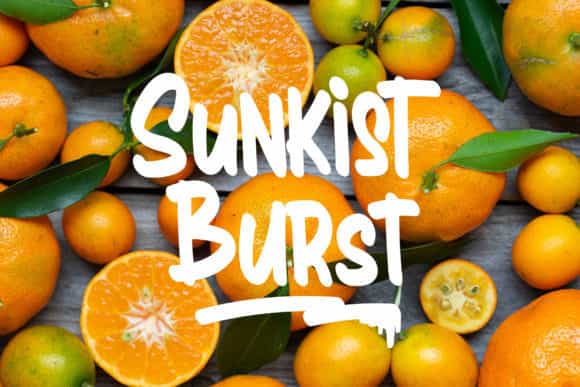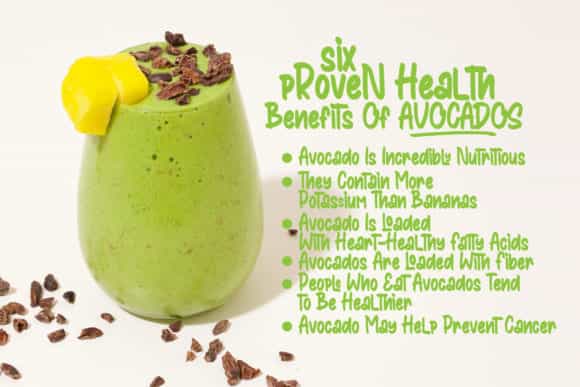
Hannessy Lemonade is a modern and fun font for children, and if you want a perfect font for greeting cards, mugs, and any other hand-lettered project you have in store, this is it! It is created and published by stefiejustprince. The font is a display font that is new and refreshing with a hint of summer. You can use it to give any craft a funky feel!